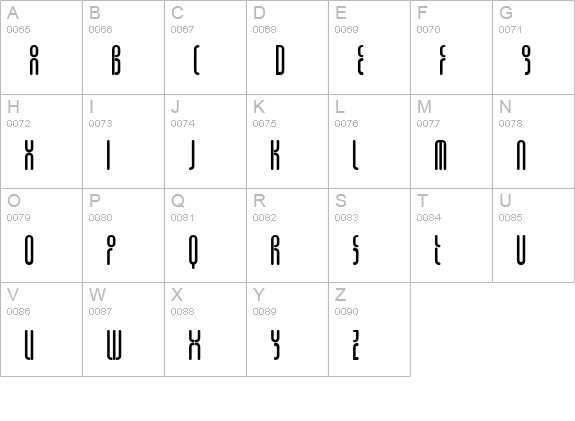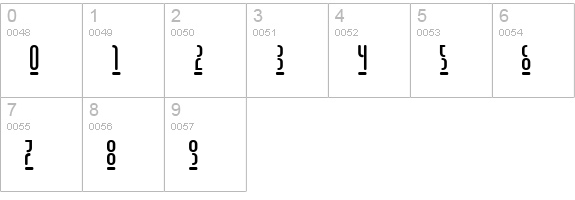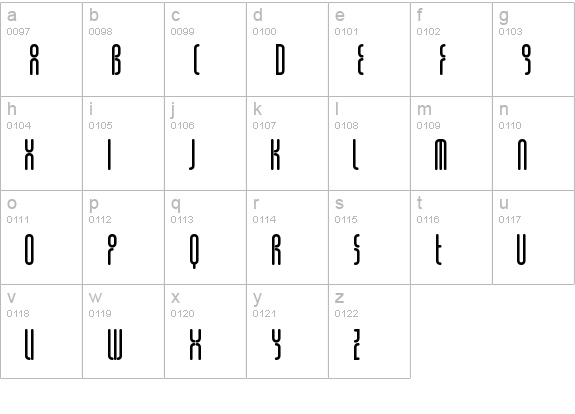
Gen3000 Font Details
Introducing Gen3000 font - a sleek and modern typeface perfect for a wide range of design projects. With its clean lines and contemporary aesthetic, Gen3000 is sure to make your text stand out. This versatile font is ideal for branding, logos, posters, and more. What's even better? Gen3000 is available for free download at FontsMarket.com. Yes, you read that right - this high-quality font can be yours at no cost. So why wait? Elevate your designs with Gen3000 today!